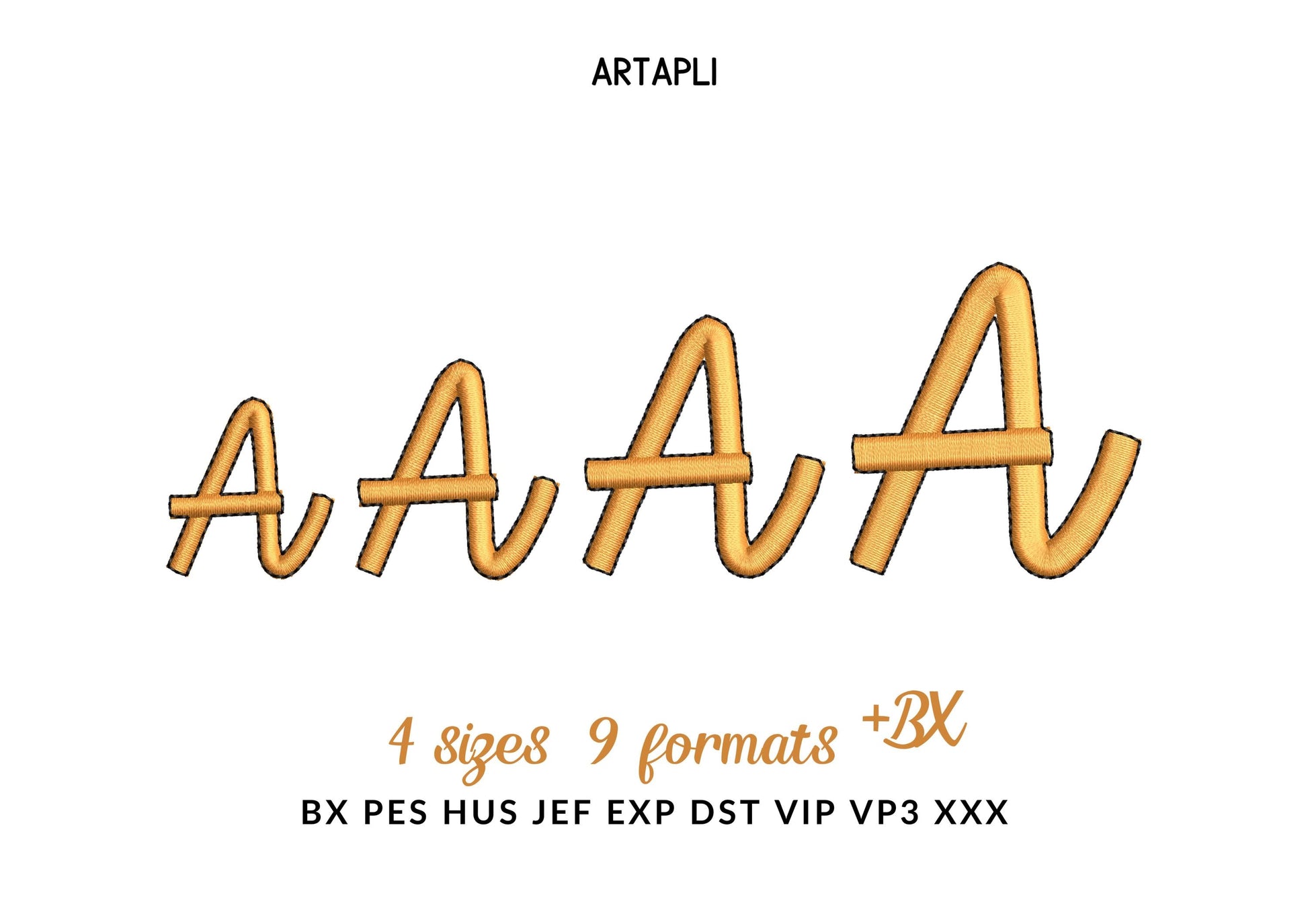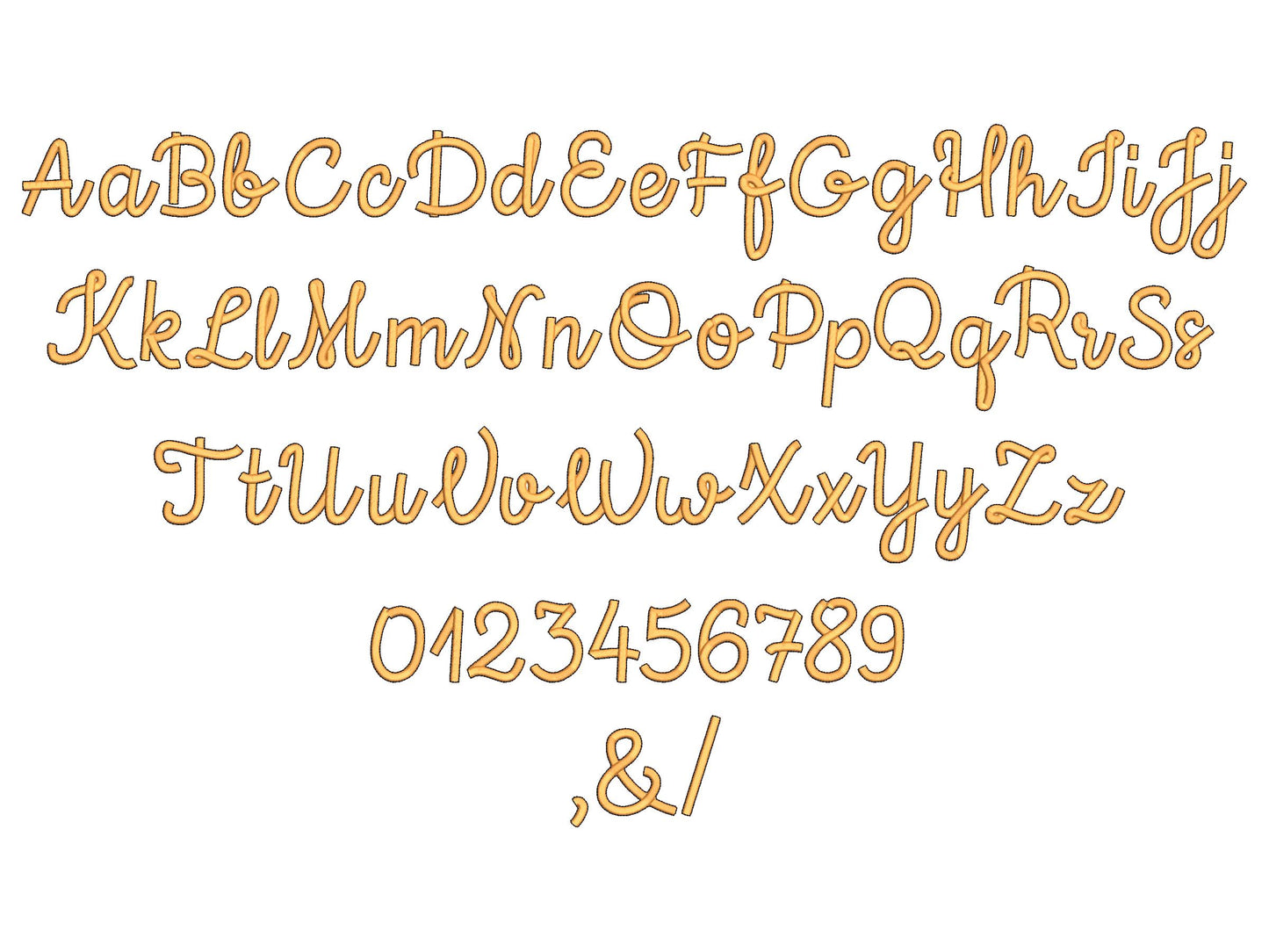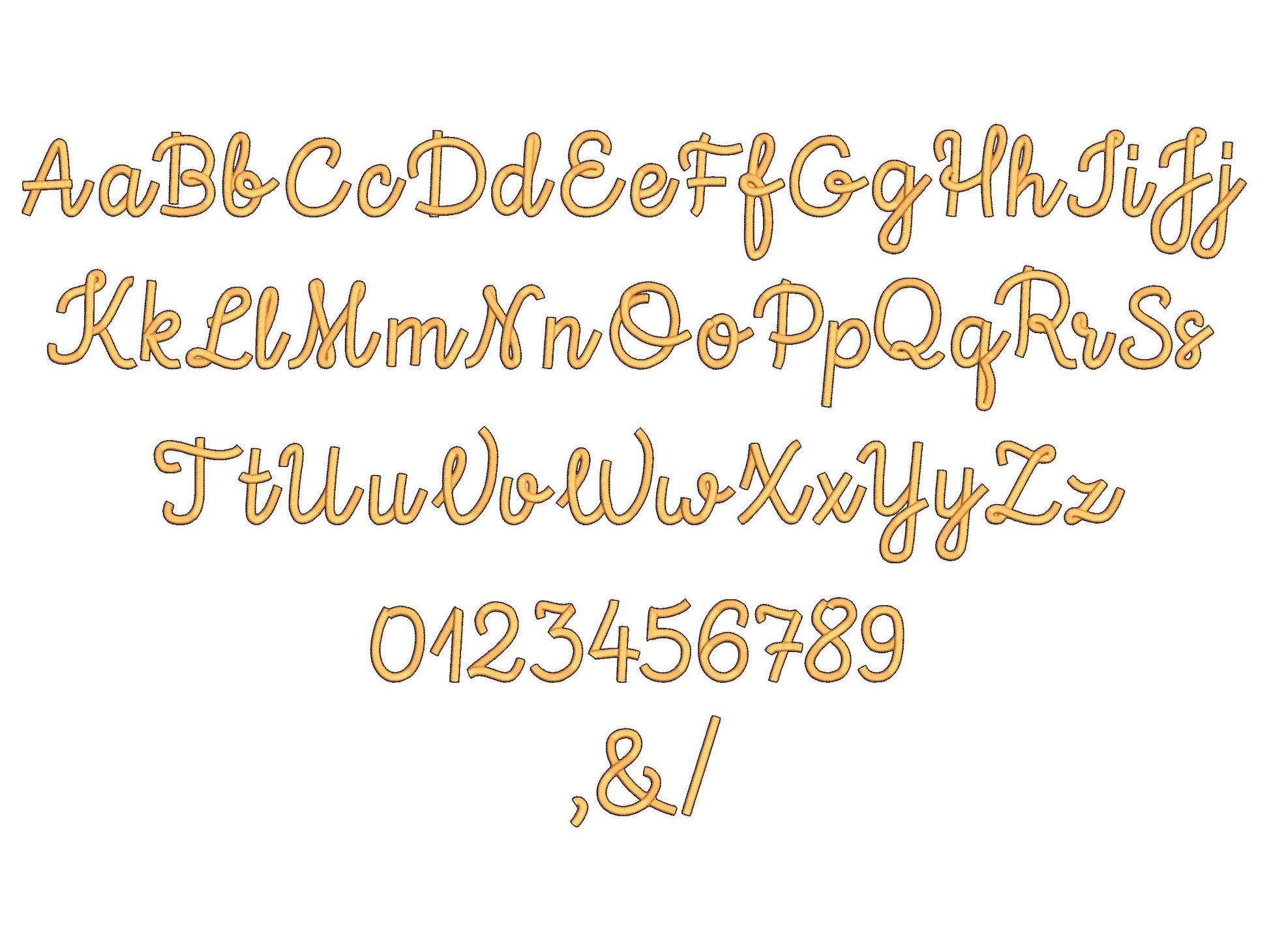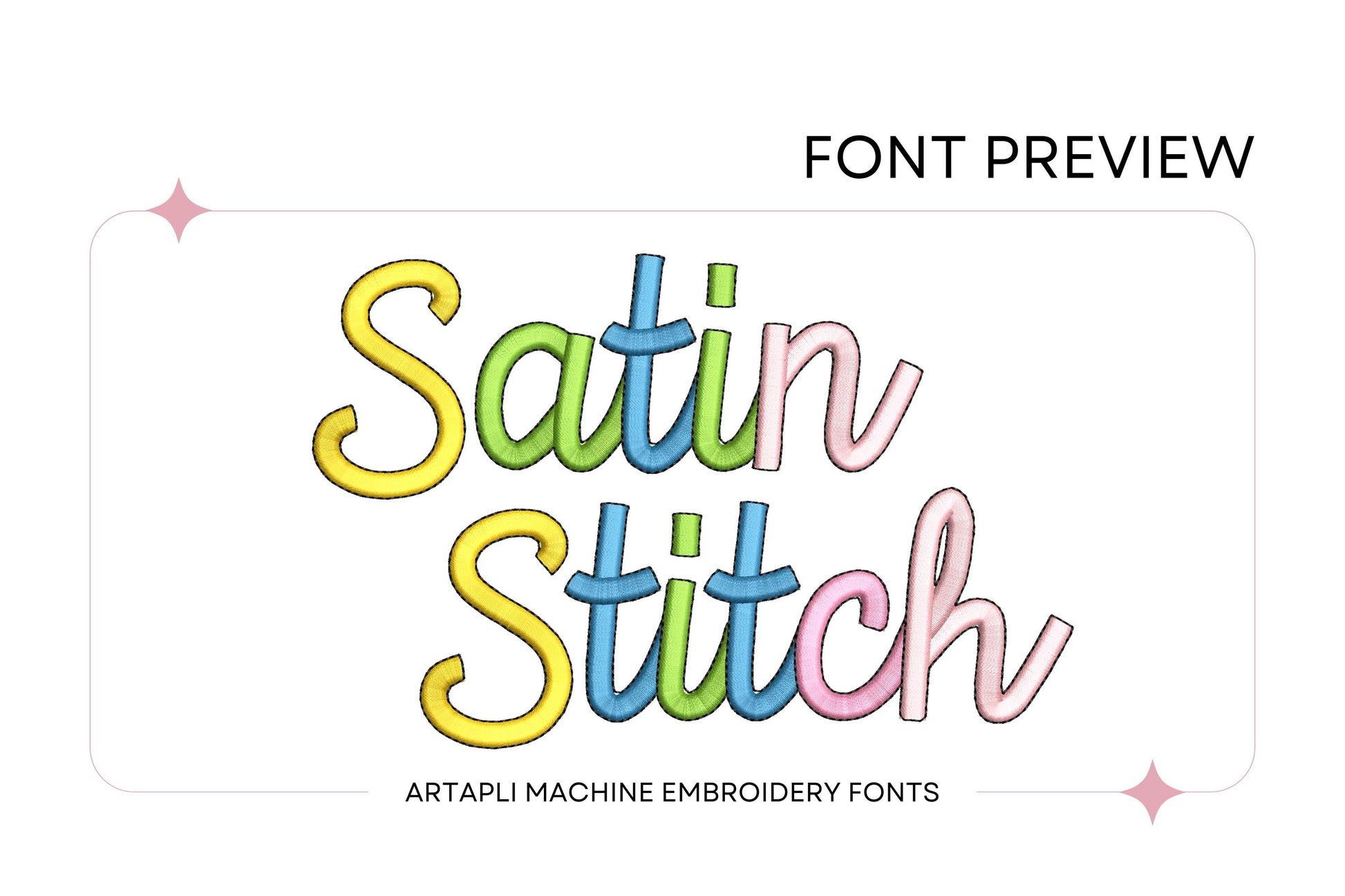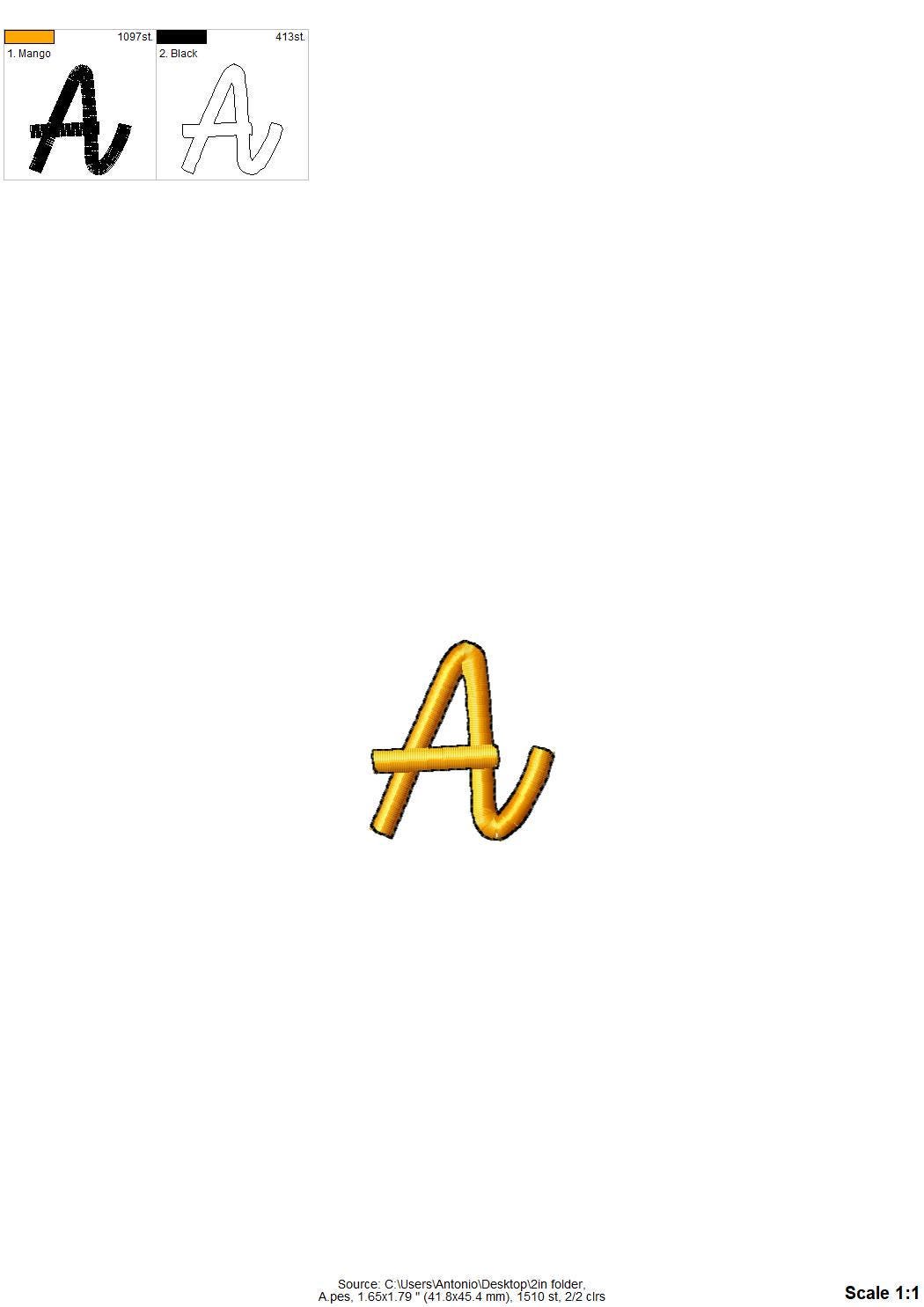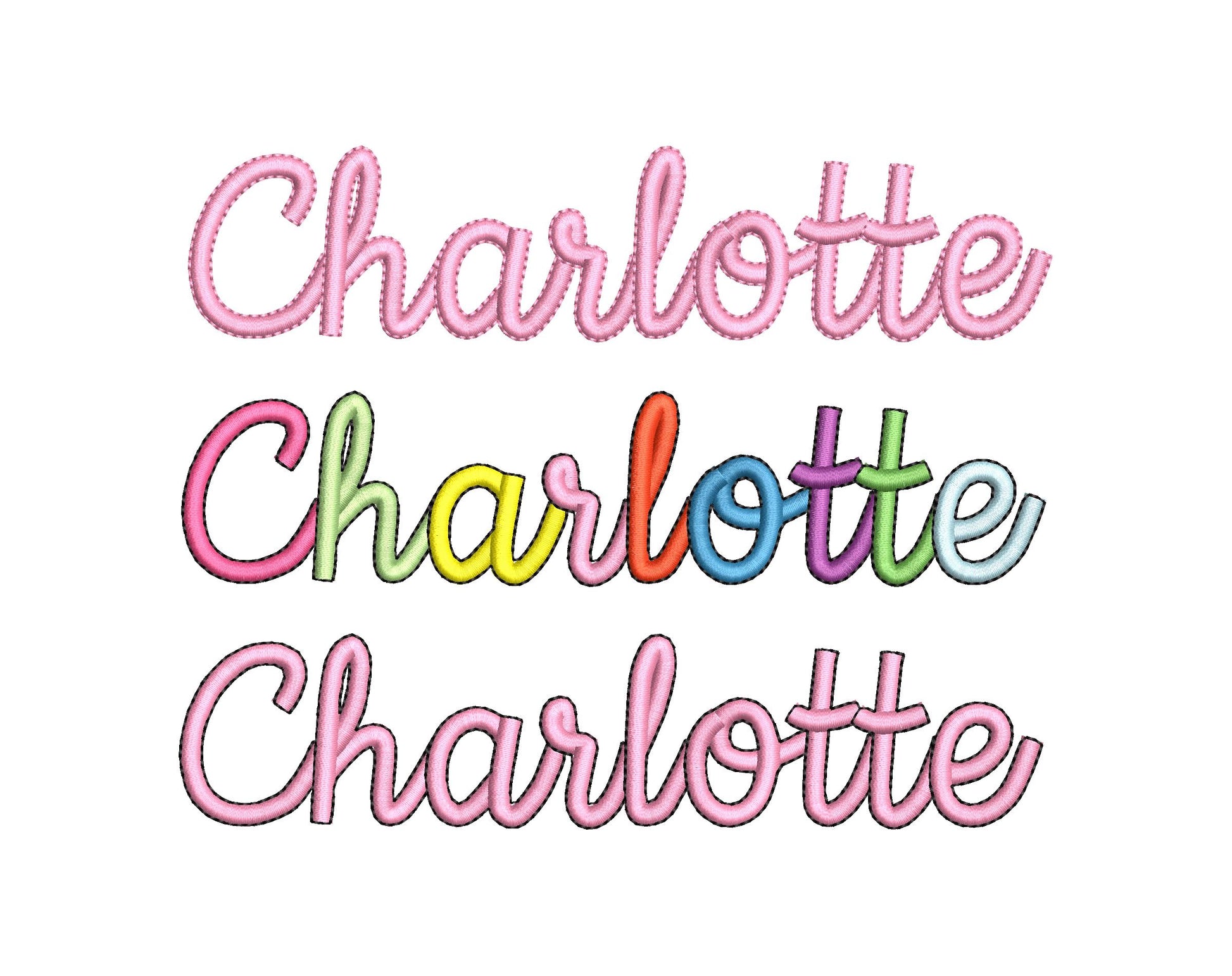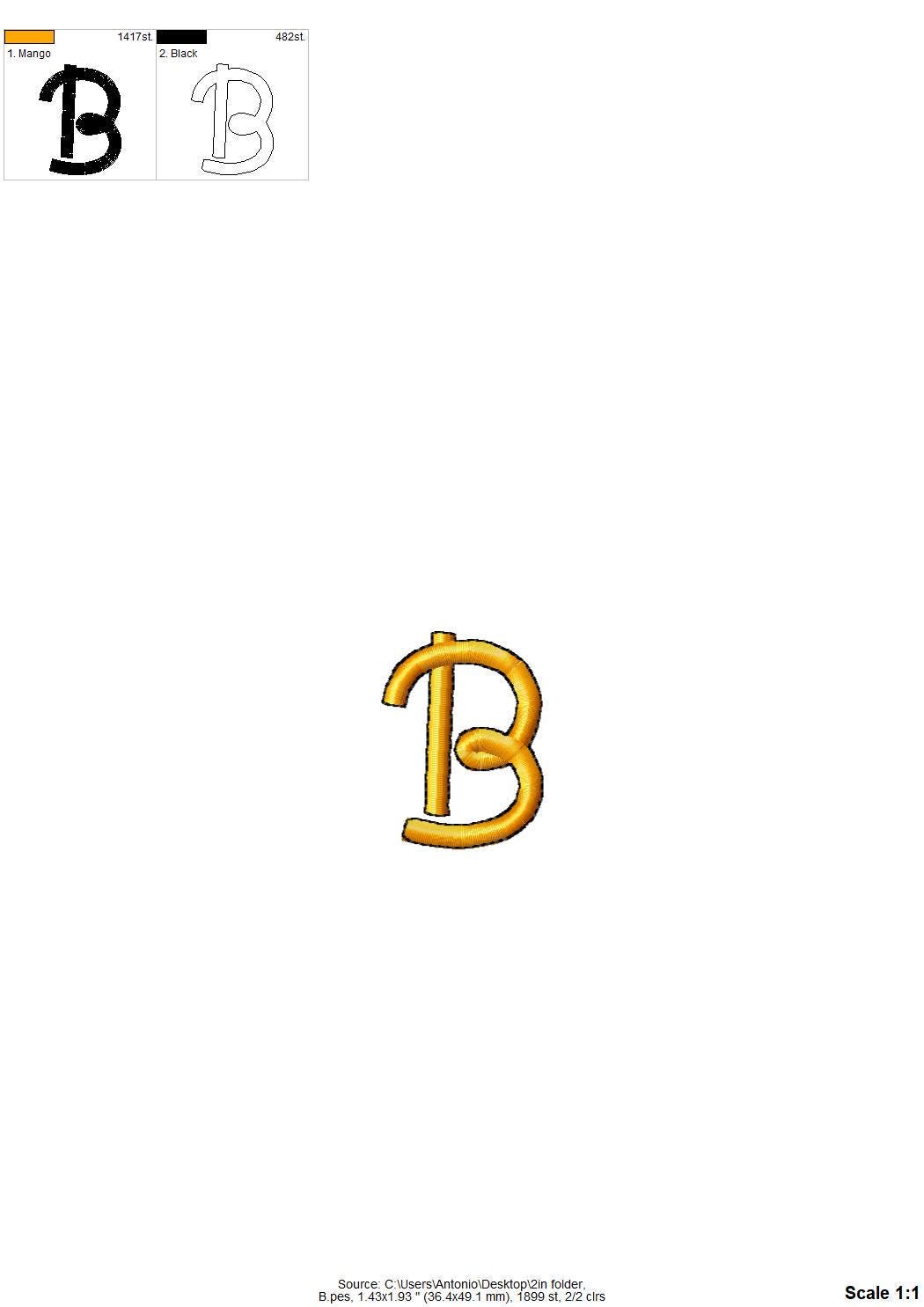
Or click to open the linkA handwritten font in satin stitch and outline. Sweet for kids' and baby names, monograms, bibs and shirts.
Uppercase and lowercase letters, numbers 0 to 9, an ampersand, comma and slash. Four sizes: 1.2, 1.6, 2 and 2.4 inches.